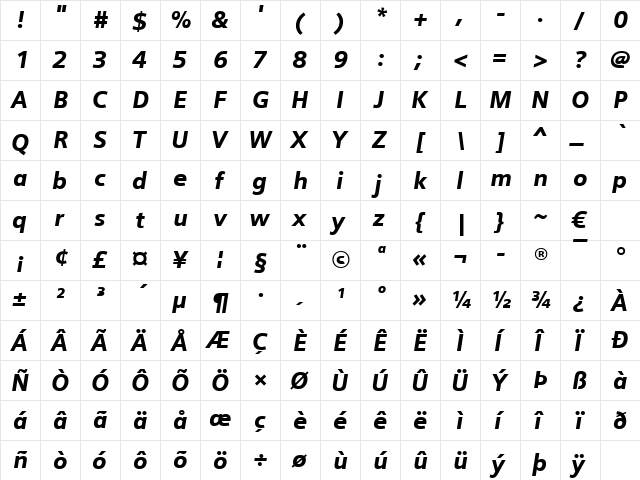
Siemens Sans Black Italic
Design Context for Siemens Sans Black Typeface
Siemens Sans Black is a composed and adaptable typeface that performs quietly and consistently across a wide range of design contexts. The slanted form adds forward momentum and visual energy.